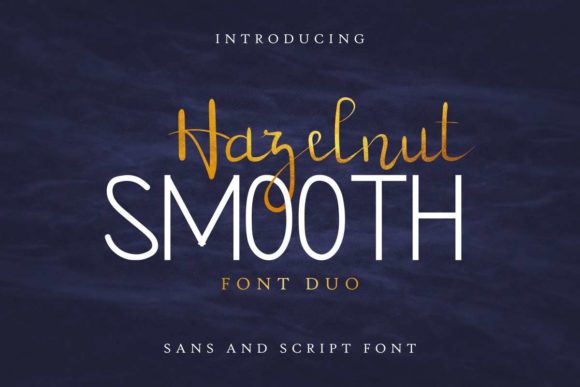
Introducing Hazelnut Smooth Duo Font: The Ultimate Pairing for Elegant Designs
Are you tired of using the same old fonts in your designs? Look no further! Hazelnut Smooth Duo Font is here to revolutionize your typography game. This match made in heaven combines the simplicity of a sans serif font with the elegance of a script font, creating a unique and versatile pairing that will elevate your designs to the next level.
The Perfect Pairing: Sans Serif and Script
The Hazelnut Smooth Duo Font is a carefully crafted combination of two distinct fonts that complement each other perfectly. The sans serif font provides a clean and modern base, while the script font adds a touch of sophistication and elegance. This pairing is ideal for designers who want to create a unique visual identity for their brand or project.
The versatility of Hazelnut Smooth Duo Font is one of its most significant advantages. This font duo can be used in a wide range of applications, from headlines and titles to branding and advertising. Whether you’re designing a logo, brochure, or website, this font pairing will give your design a professional and polished look.
- Unique pairing: The combination of sans serif and script fonts creates a distinctive and eye-catching visual effect.
- Elegant and sophisticated: The script font adds a touch of luxury and refinement to your designs.
- Versatile: Suitable for a wide range of applications, from headlines to branding.
- Easy to read: The sans serif font provides excellent legibility, making it perfect for body text.
Why Choose Hazelnut Smooth Duo Font?
With so many fonts available, why choose Hazelnut Smooth Duo Font? Here are just a few reasons:
- Time-saving: With two fonts in one, you can create a cohesive look without having to search for matching fonts.
- Design flexibility: Experiment with different font combinations to find the perfect look for your project.
Need inspiration for your next project? Here are a few ideas to get you started:
- Logos: Use Hazelnut Smooth Duo Font to create a memorable and elegant logo for your brand.
- Wedding stationery: Add a touch of sophistication to your wedding invitations, programs, and other stationery.
- Branding: Create a cohesive visual identity for your business with this versatile font pairing.
- Web design: Use Hazelnut Smooth Duo Font to create a professional and modern website.
In conclusion, Hazelnut Smooth Duo Font is a game-changer for designers and crafters. This unique pairing of sans serif and script fonts offers endless design possibilities, making it an excellent addition to your font library. With its elegance, versatility, and ease of use, Hazelnut Smooth Duo Font is sure to become a favorite among designers and crafters alike.